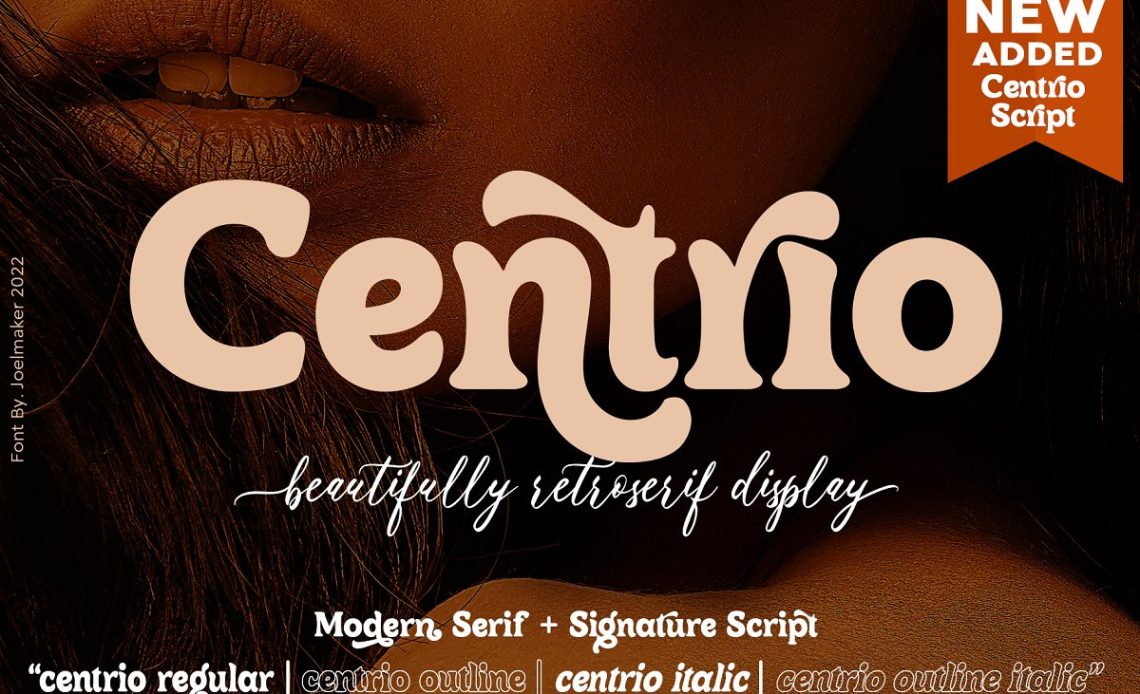
Introducing the Centrio Typeface, an elegant, retro font with a modern artistic twist. Created by Zulfikar Zulfikar, this unique font adds an element of sophistication to any design project.
The Centrio Typeface features a blend of ligatures and letters with a little swirly embedding that gives it a modern, yet vintage feel. Its unique flair makes it perfect for various design projects such as Magazine Titles, Posters, Logos, T-Shirts, Subtitles, Business Cards, Magazines, Book Covers, Wedding Invitations, Templates, Instagram Story Posts, Greeting Cards, Quotes, and more.
With the Centrio Typeface, you can add an elegant and unique touch to your next design project. Its retro feel and modern twist make it a versatile and eye-catching font that is perfect for any occasion.